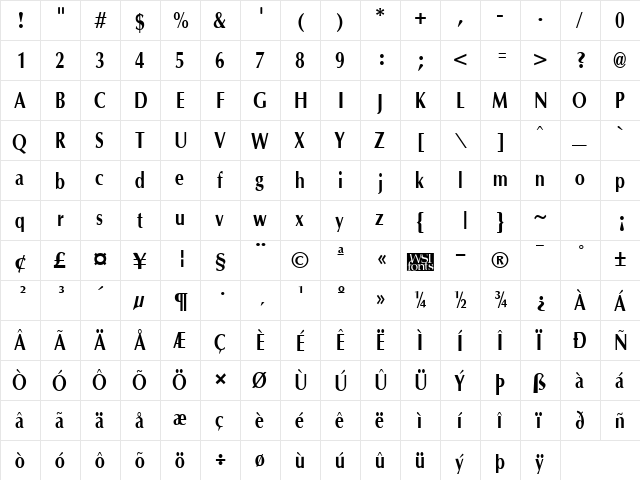
OptaneCompact Bold Font Preview
OptaneCompact Bold
OptaneCompact Bold Font Details
Design Context for OptaneCompact Typeface
OptaneCompact takes a measured approach to typography — its balanced proportions and neutral character make it a reliable workhorse for both digital and print work. Its bold stroke weight gives it real presence on the page. Its narrow stance lets it pack a punch even in space-constrained designs.